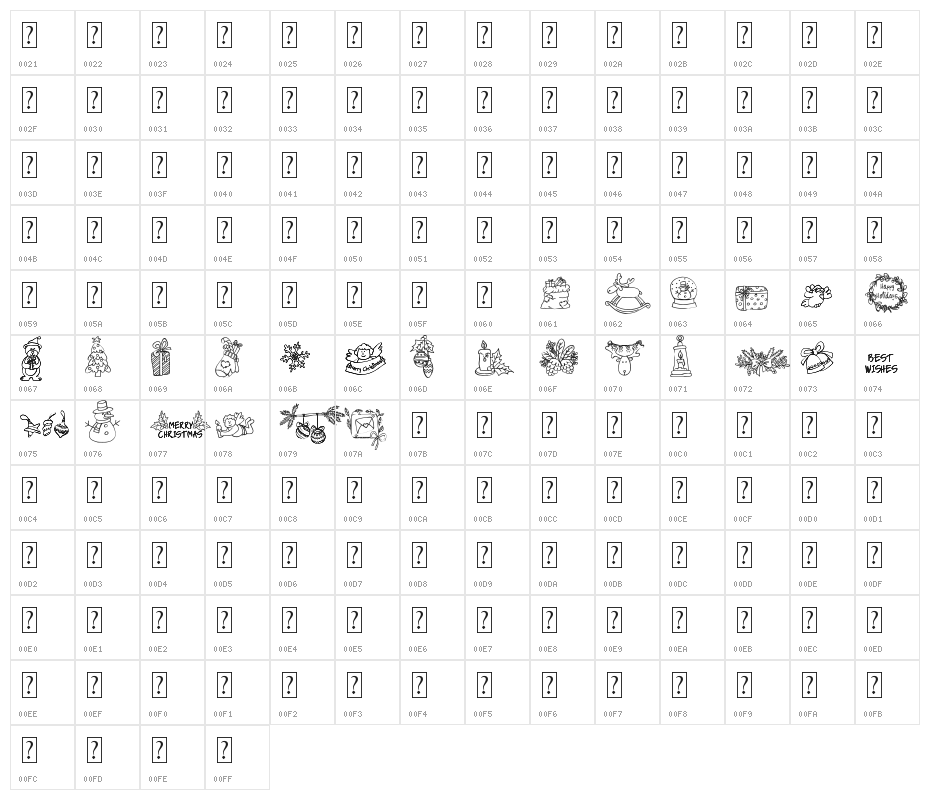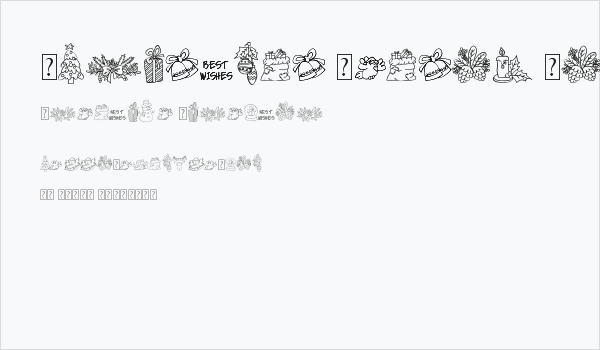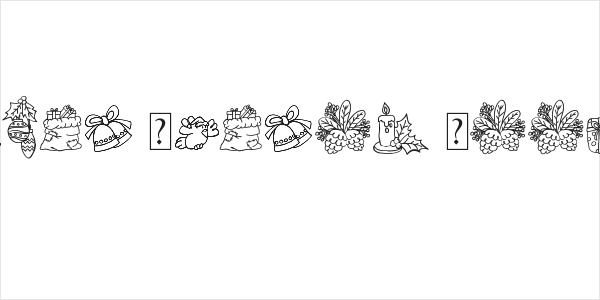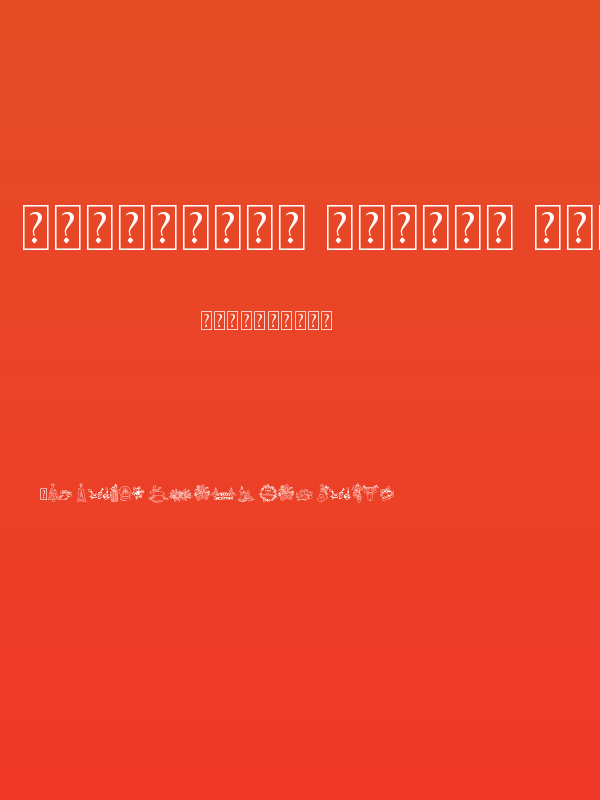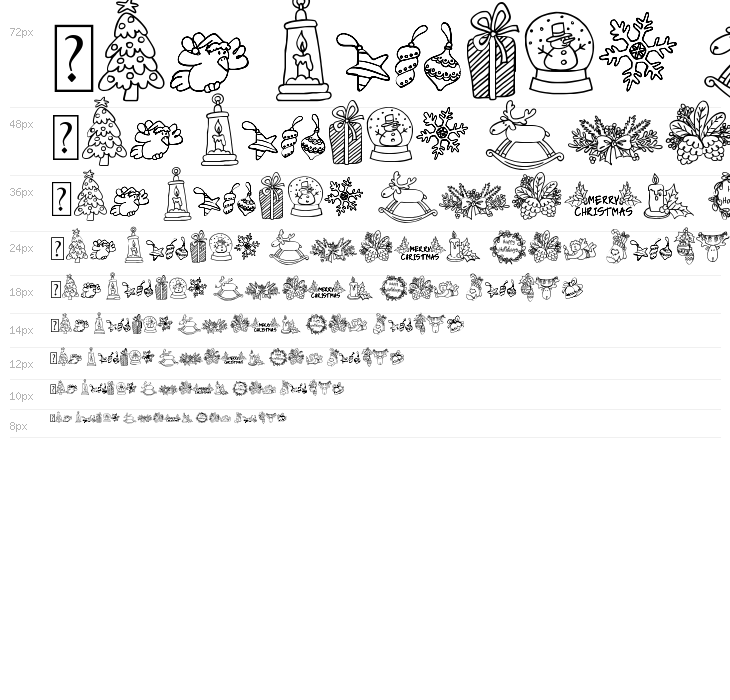
Christmas Season Doodle_DEMO Font
Christmas Season Doodle_DEMO Description
A decorative doodle font featuring hand-drawn Christmas and holiday-themed illustrations such as gifts, reindeer, snow globes, wreaths, trees, snowmen, and festive greetings. The style is playful and whimsical, with each character replaced by a unique festive icon or phrase.
| Overall Style | Decorative, Whimsical, Festive |
| Use Case | Decorative elements, Holiday-themed projects, Greeting cards |
| Proposed Projects | Holiday cards, festive invitations, gift tags, seasonal posters, social media graphics, decorative headers. |